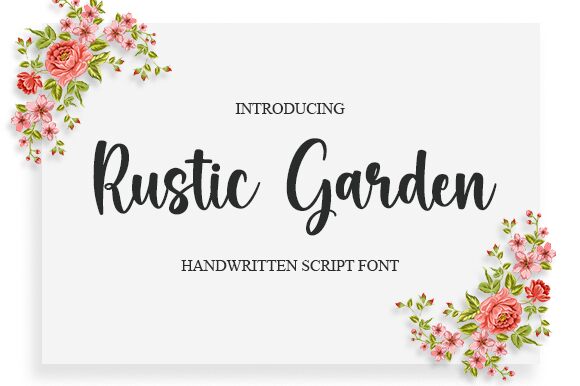
Rustic Garden is a charming and elegant handwritten script font by Aldi Raya Pradipta. With its narrow width and unique style, it is perfect for creating invitations, greeting cards, logos, or any other project with an air of sophistication.